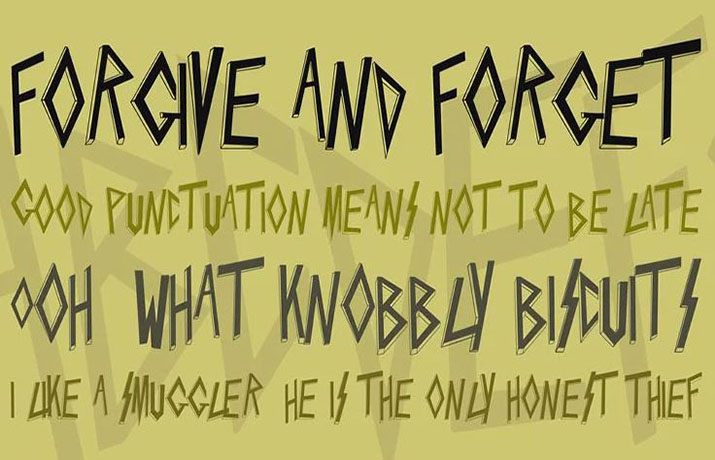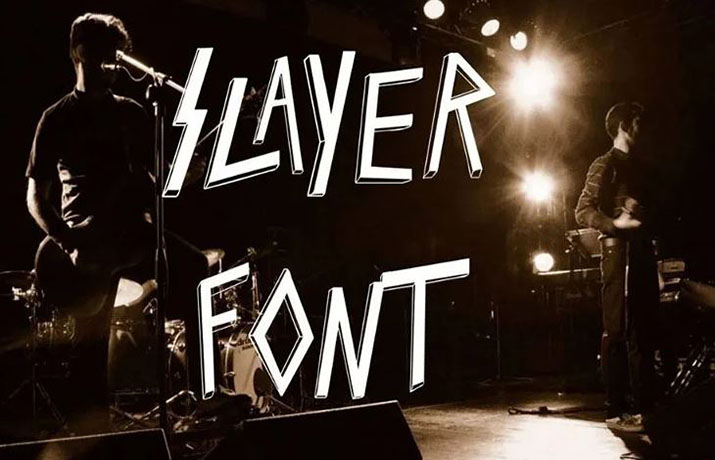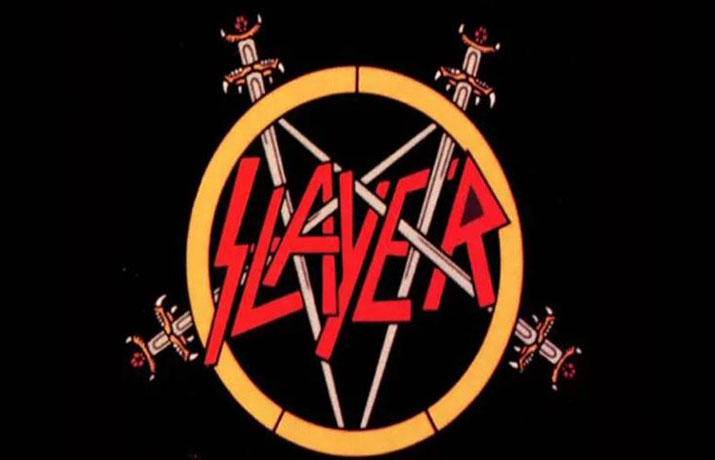
Slayer Font is a logo typeface basically, Slayer is an American thrash metal band formed in 1981 by guitarists Jeff Hanneman and Kerry King.
“A 3D font named Slaytanic Font was originally used in this band logo.” It was created by a Danish font designer Mr. Chris Hansen. This font contains 653 glyphs and also supports 102 multilingual languages
• The distinctive characters in it make it suitable for a wide range of applications, including but not limited to logo design, product packaging, product designs, comic covers, game titles, game developments, movie posters, unique emblems, product designs, special event cards, game graphics, cartoons, kid-friendly elements, headers, banners, flyers, header printing, and card printing.
What is Slayer Font?
Slayer Font is a logo typeface basically, Slayer is an American thrash metal band formed in 1981 by guitarists Jeff Hanneman and Kerry King.
A 3D font named Slaytanic Font was originally used in this band logo.” It was created by a Danish font designer Mr. Chris Hansen.